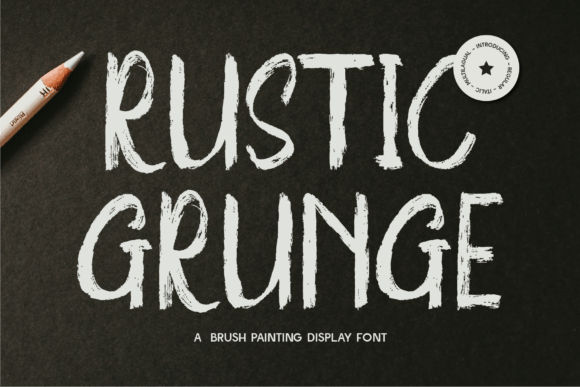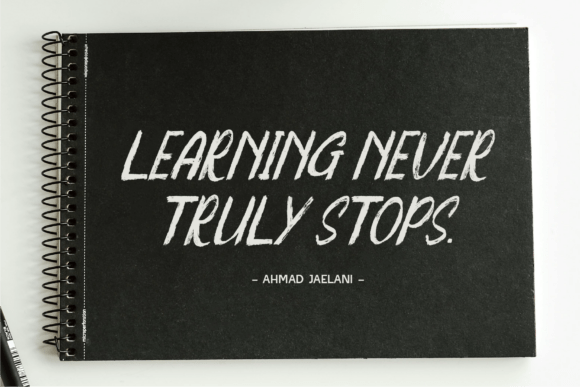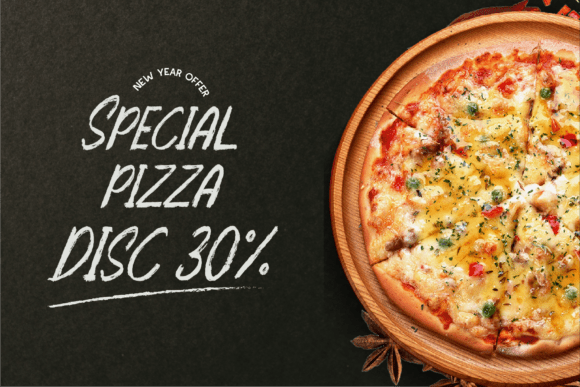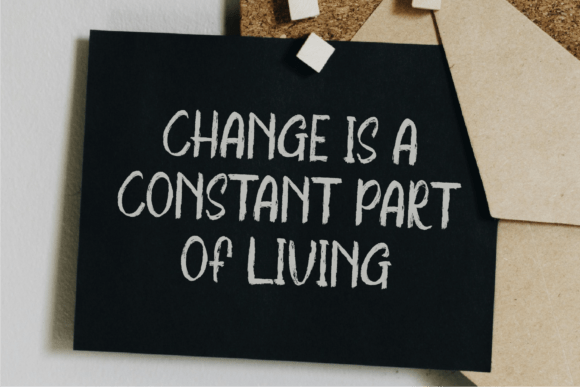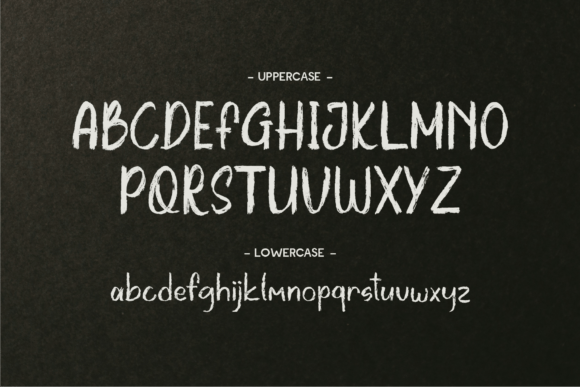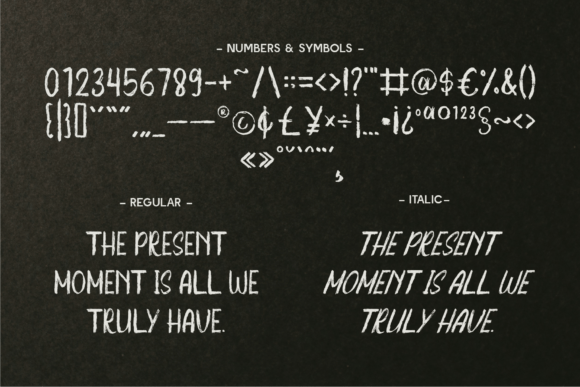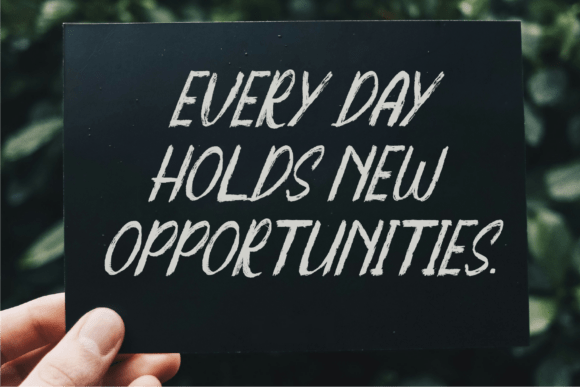
Rustic Grunge Font
**Rustic Grunge** – A Raw & Textured Brush Display Font
Get ready to make a bold statement with Rustic Grunge, a hand-painted brush display font that exudes raw energy and authenticity. With its rough, textured strokes and imperfect edges, this font captures the spirit of grunge, street art, and urban design.
Perfect for posters, album covers, branding, apparel, social media, and creative projects, Rustic Grunge brings a touch of rebellion and handcrafted artistry to any design. Whether you’re aiming for a vintage, industrial, or distressed aesthetic, this font adds the perfect bold and rustic touch.
**Why Choose Rustic Grunge?**
🖌 Authentic Brush Texture: Hand-painted strokes with raw, natural imperfections.
⚡ Edgy & Bold: Ideal for branding, posters, music covers, and street-style graphics.
🎨 Versatile & Impactful: Works for rustic, grunge, vintage, and urban designs.
🔠 Multiple Styles: Regular & Italic versions for more design flexibility.